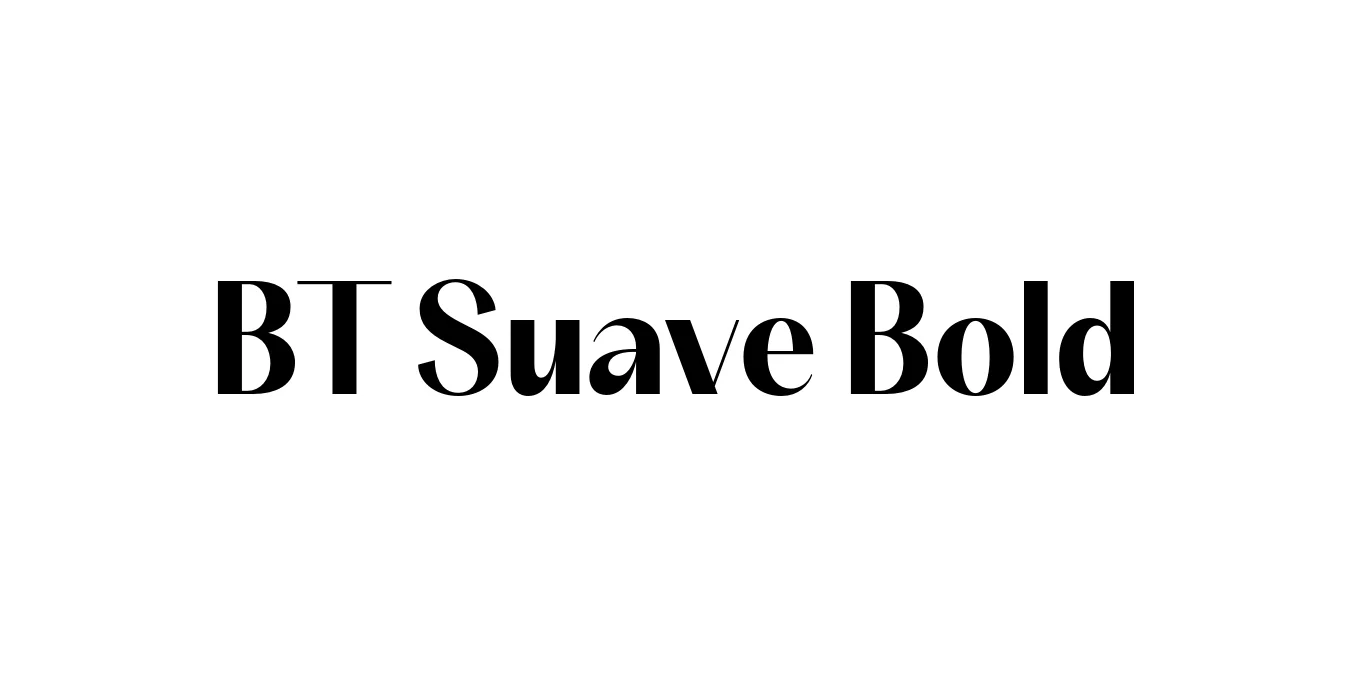
BT Suave Bold
Designed by Bitstream
BT Suave Bold is a sophisticated sans-serif typeface developed by the renowned foundry Bitstream. It is characterized by its smooth, refined curves and balanced proportions that evoke a sense of modern elegance and professional maturity. The Bold weight provides a strong visual presence without losing the inherent grace of the Suave family, making it an excellent choice for high-end branding, editorial headers, and display purposes where clarity and style are paramount.
Historically, this typeface was designed to bridge the gap between technical precision and organic warmth, featuring wide apertures and subtle humanist touches that ensure high legibility across various mediums. As a versatile member of the Bitstream library, BT Suave Bold remains a popular choice for designers seeking a professional yet approachable aesthetic for both digital interfaces and traditional print media, standing the test of time as a reliable utility font.
BT Suave Bold Best Uses
Perfect for creating sophisticated and modern brand identities.
Great for high-impact titles in magazines and web layouts.
Effective for clean, professional marketing and promotional materials.
Adds a premium feel to luxury product labels and boxes.